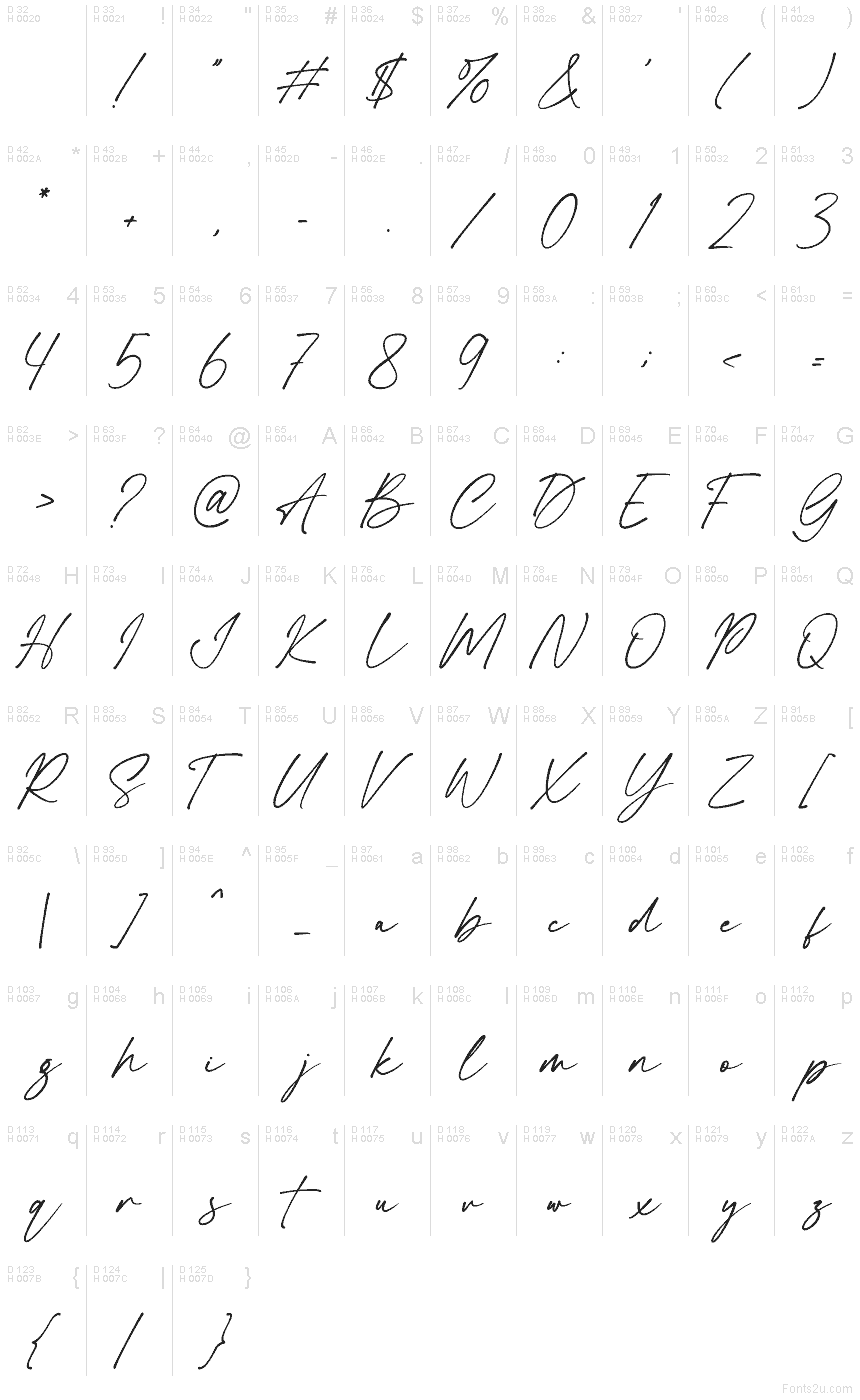
Castely
Castely font is a flowing, handwritten font with a contemporary style by RantautypeStudio. This elegant and expressive design features light letters which combine in harmony to present beautiful typography suitable for multiple projects. Castely has an overall sophisticated and stylish appearance that highlights the designer’s attention to detail.